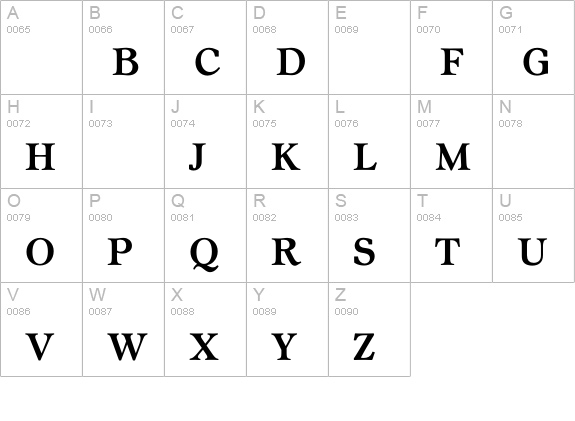
ChelseaLight Font Details
Introducing ChelseaLight, a versatile and elegant font that exudes sophistication and charm. With its clean lines and graceful curves, ChelseaLight is perfect for adding a touch of class to any design project. Whether you're creating invitations, branding materials, or website headers, this font will elevate your work to the next level. What's even better is that ChelseaLight is available for free download at FontsMarket.com. Yes, you read that right – this stunning font can be yours at no cost. Don't miss out on the opportunity to enhance your projects with the timeless beauty of ChelseaLight. Download it today and let your creativity shine!